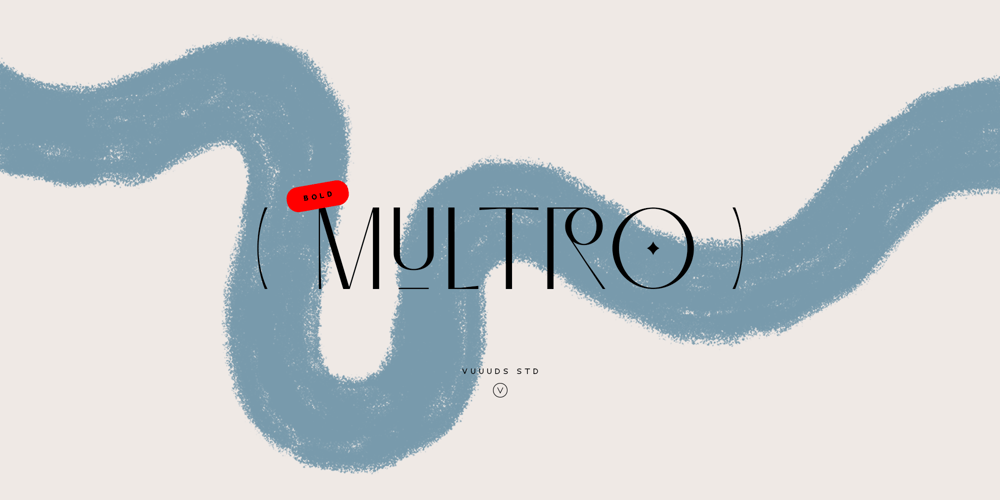
Multro Bold Font Family was designed by Agung Syaifudin and published by vuuuds. Multro Bold contains 1 styles and family package options. Introducing Multro Bold Font!Multro Bold is modern experimental display font, every single letters have been uniquely crafted.This font including beautiful alternate glyph. You can access the alternate glyph via Font Book (Mac user) or Windows Character Map (Windows user), I’ve been put the link tutorial inside the zip file.Foreign languages support: ÀÁÂÃÄÅÆÇÈÉÊËÌÍÎÏÐÑÒÓÔÕÖØÙÚÛÜÝàáâãäåæçèéêëìíîïðñòóôõöøùúûüýÿ